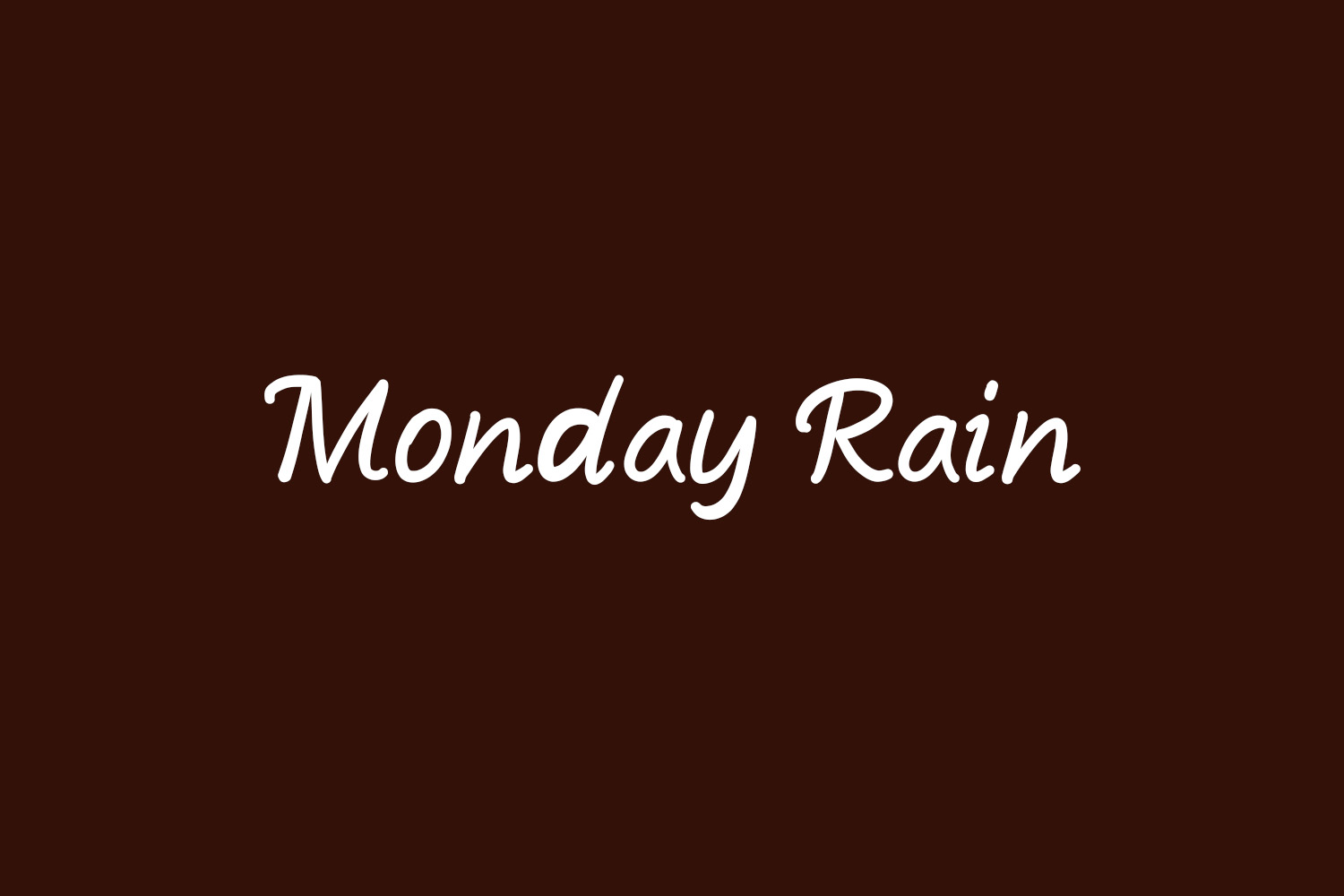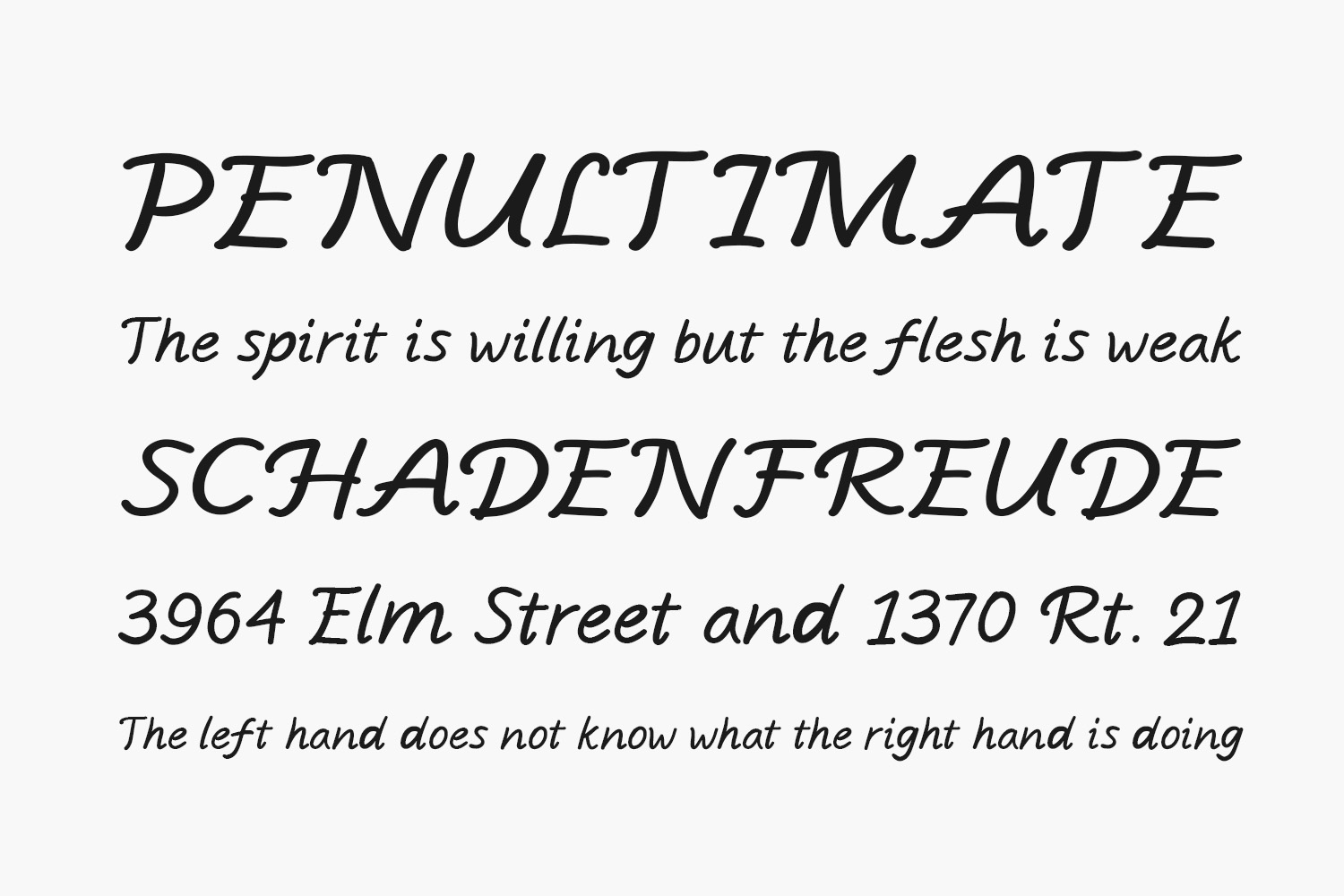
Monday Rain Free Font is a contemporary and charming handwritten font ideal for a variety of design projects such as posters, logos, magazines, book covers, banners, and more! Acquire this exceptional font and unleash its potential to craft delightful designs. Its versatility allows seamless integration into a vast array of creative ventures, enhancing their visual appeal. Incorporate Monday Rain into your design repertoire and watch your ideas shine. Monday Rain Free Font is free for personal or commercial use.